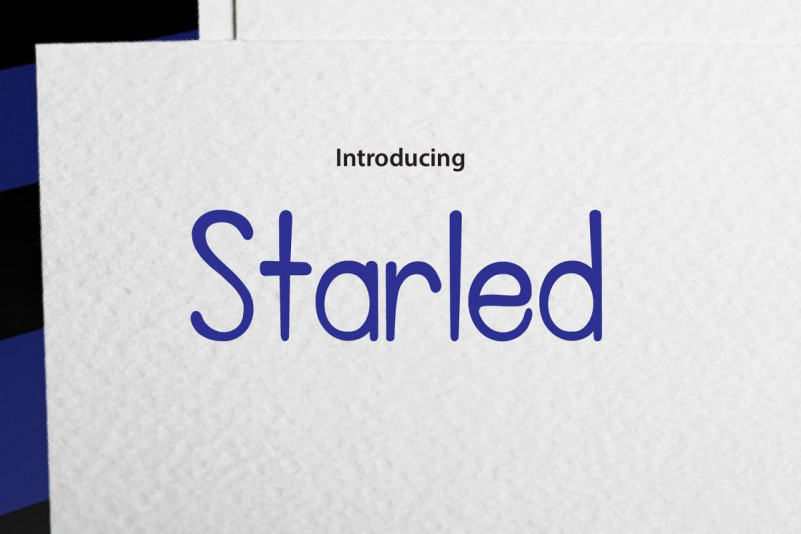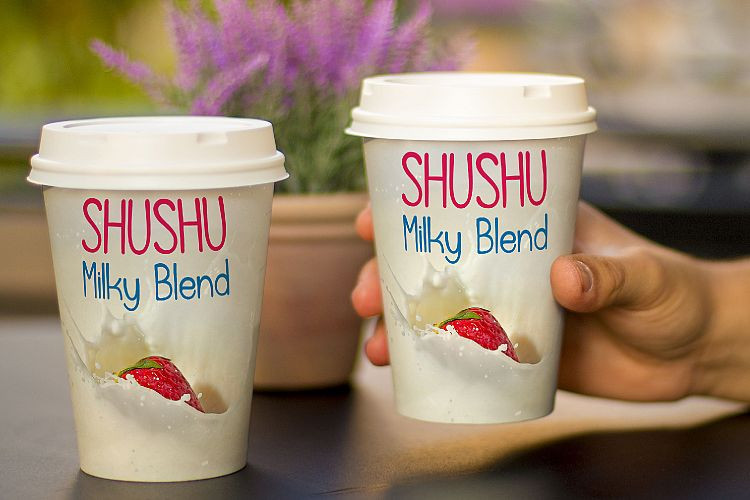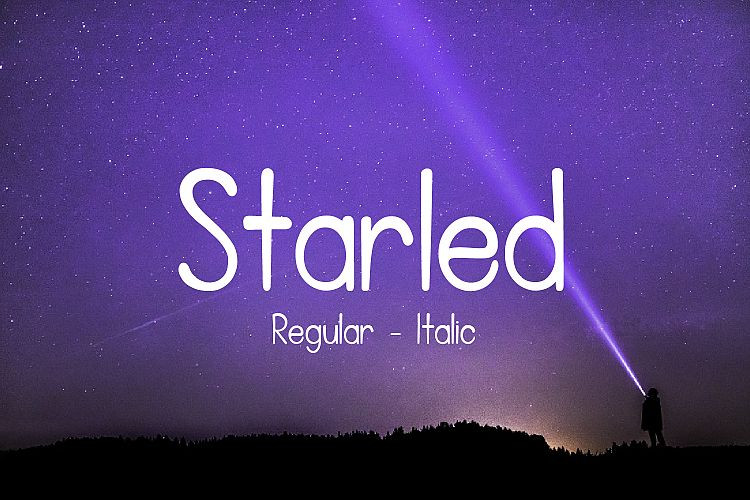
Starled Script Font
Starled typeface is suitable for logos, quotes, clothing, advertising,
image overlay, poster, cover films, greeting cards and web banners,
t-shirt, etc.